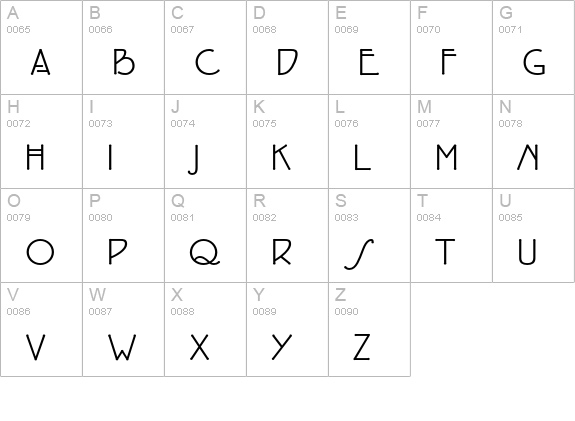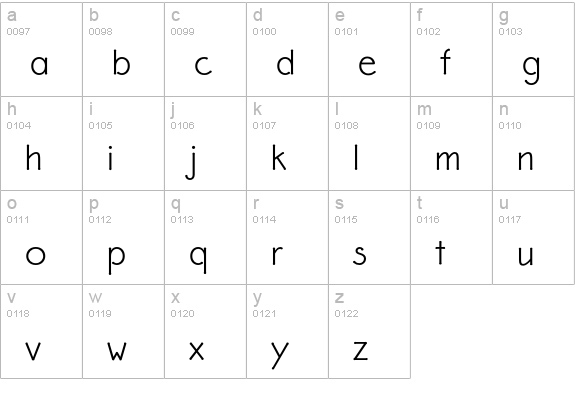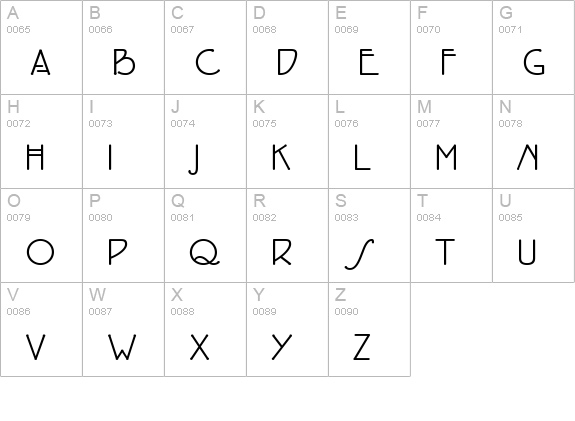
P22Eaglefeather Font Details
P22Eaglefeather is a breathtaking font that encapsulates the essence of elegance and grace. With its intricate details and captivating curves, this typeface is the perfect choice for any design project that requires a touch of sophistication. Inspired by the majestic beauty of the eagle's feathers, P22Eaglefeather exudes a sense of power and freedom. Each letter is meticulously crafted, reflecting the intricate patterns found in nature. The smooth lines and delicate strokes create a harmonious balance, making it visually pleasing to the eye. This font is not only visually stunning but also highly versatile. Whether you are working on a logo, branding materials, invitations, or any other creative endeavor, P22Eaglefeather will elevate your design to new heights. Its timeless appeal ensures that your work will stand the test of time and leave a lasting impression on your audience. And the best part? P22Eaglefeather is freely available to download at FontsMarket.com. Yes, you read that right! You can access this remarkable font without spending a dime. This generous offer allows designers, artists, and enthusiasts alike to unleash their creativity without any limitations. So, go ahead and explore the world of P22Eaglefeather. Download it today from FontsMarket.com and embark on a journey of artistic expression. Let your imagination soar as you harness the power of this stunning font. With P22Eaglefeather, the possibilities are truly endless.